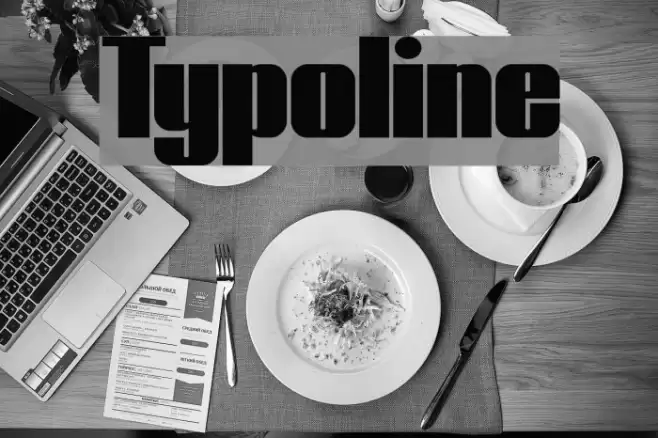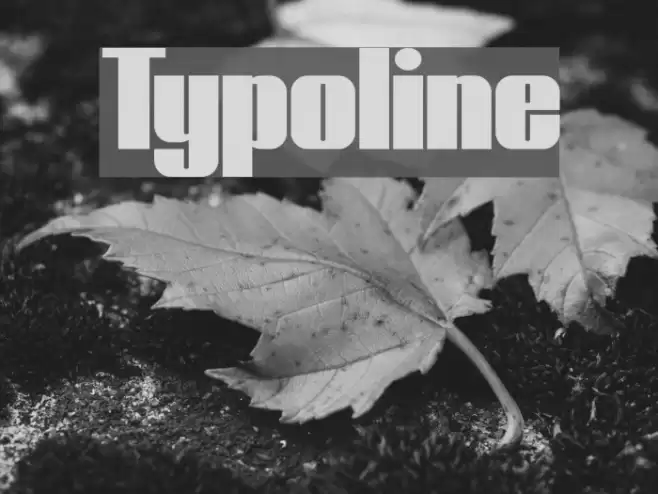
Typoline Font
Typoline Description
This font features a bold and impactful design, characterized by thick, block-like letters that convey strength and authority. The uppercase and lowercase letters maintain a consistent width, creating a uniform and cohesive appearance. The numbers and special characters are equally robust, ensuring readability and prominence in any design. The font's overall style is modern and assertive, making it suitable for projects that require a strong visual presence. Its high contrast in stroke thickness adds to its boldness, while the character spacing is tight, enhancing its compact and powerful look.
A bold, modern font with thick, block-like letters and high contrast from Uncategorized fonts.
- Proposed Projects: Ideal for headlines, posters, branding, and any design needing a strong visual impact.